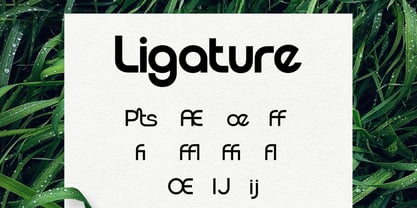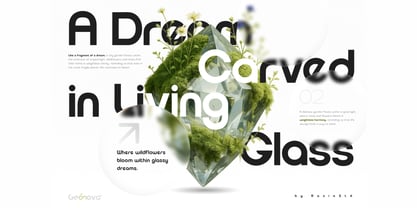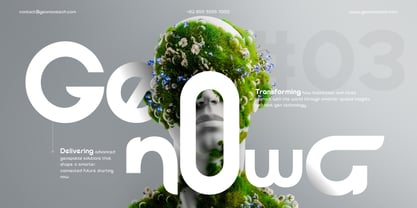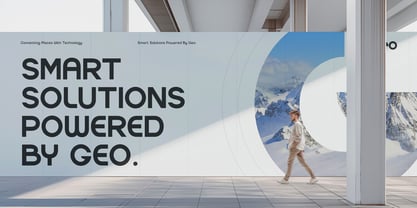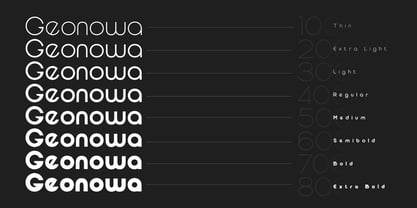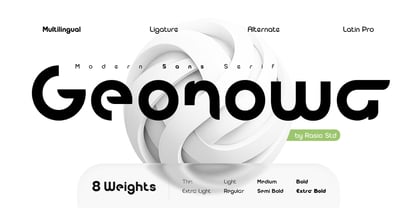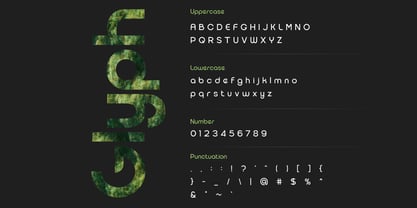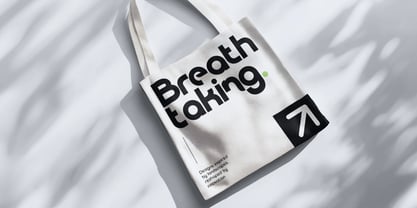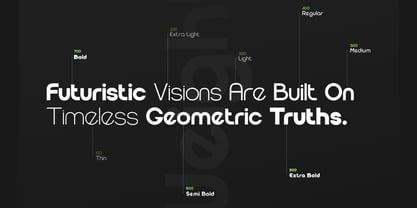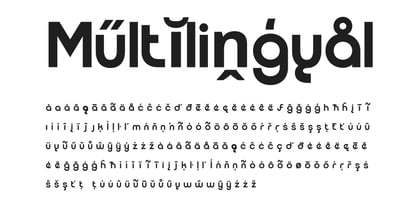
Geonowa
by Rasio Studio
The Geonowa Font Family was designed by Fajar Indra and published by Rasio Studio. Geonowa contains 8 styles and family package options. More about this family
Geonowa is a sleek and modern sans serif typeface built on the foundation of clean geometry and futuristic aesthetics. With 8 meticulously crafted weights from Thin to Extra Bold Geonowa adapts to a wide range of visual identities, from tech-forward branding to minimal editorial design. This versatile font includes stylistic alternates, ligatures, multilingual support, and full Latin Pro character set. Its soft curves and strong structure make it perfect for logos, UI/UX projects, apps, posters, headlines, and bold visual statements. Geonowa stands out as a modern sans serif typeface with futuristic and tech-inspired aesthetics, making it an ideal choice for digital interfaces, mobile app UI, technology branding, start-up logos, minimalist advertising, and modern editorial layouts.
Designers: Fajar Indra
Foundry: Rasio Studio